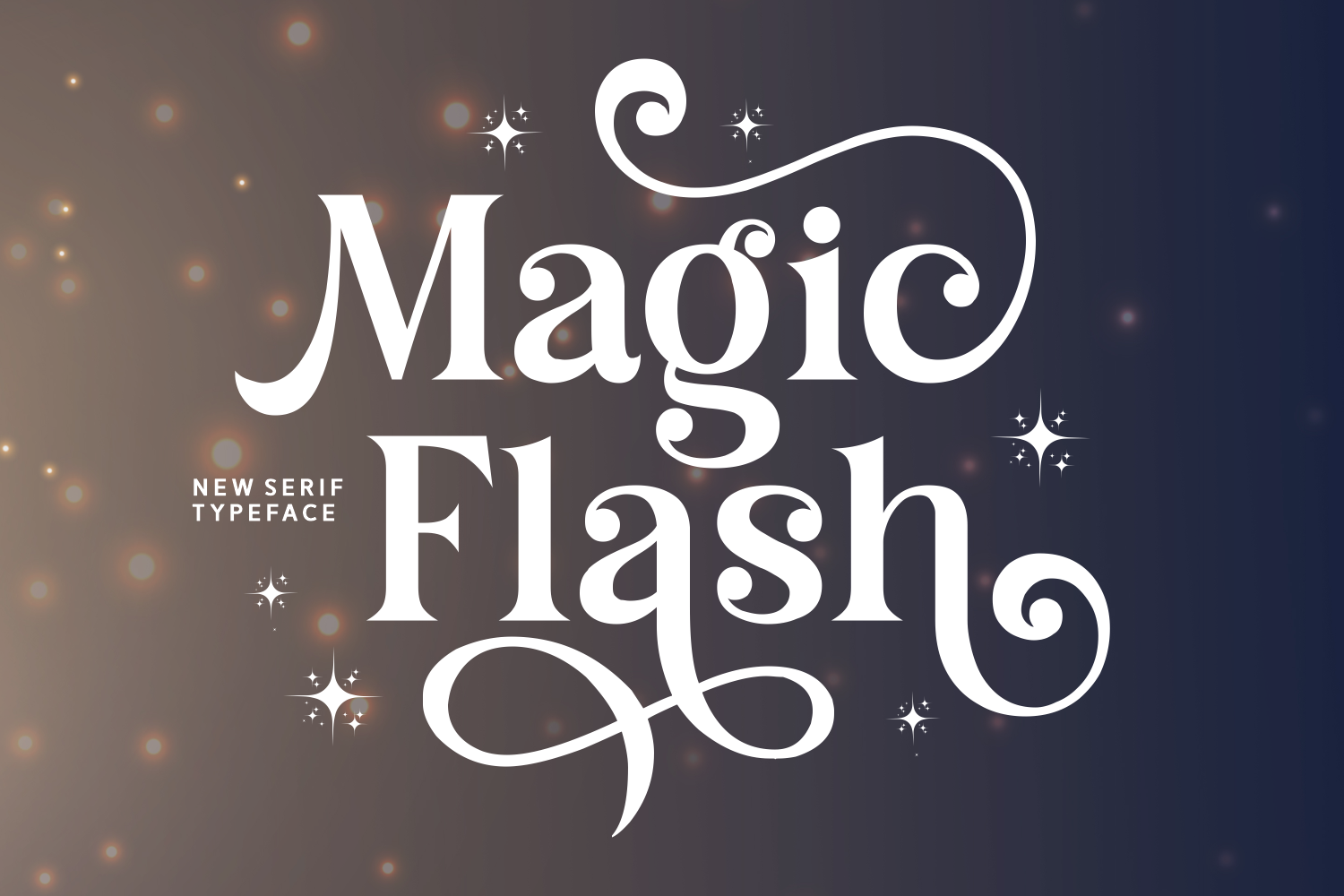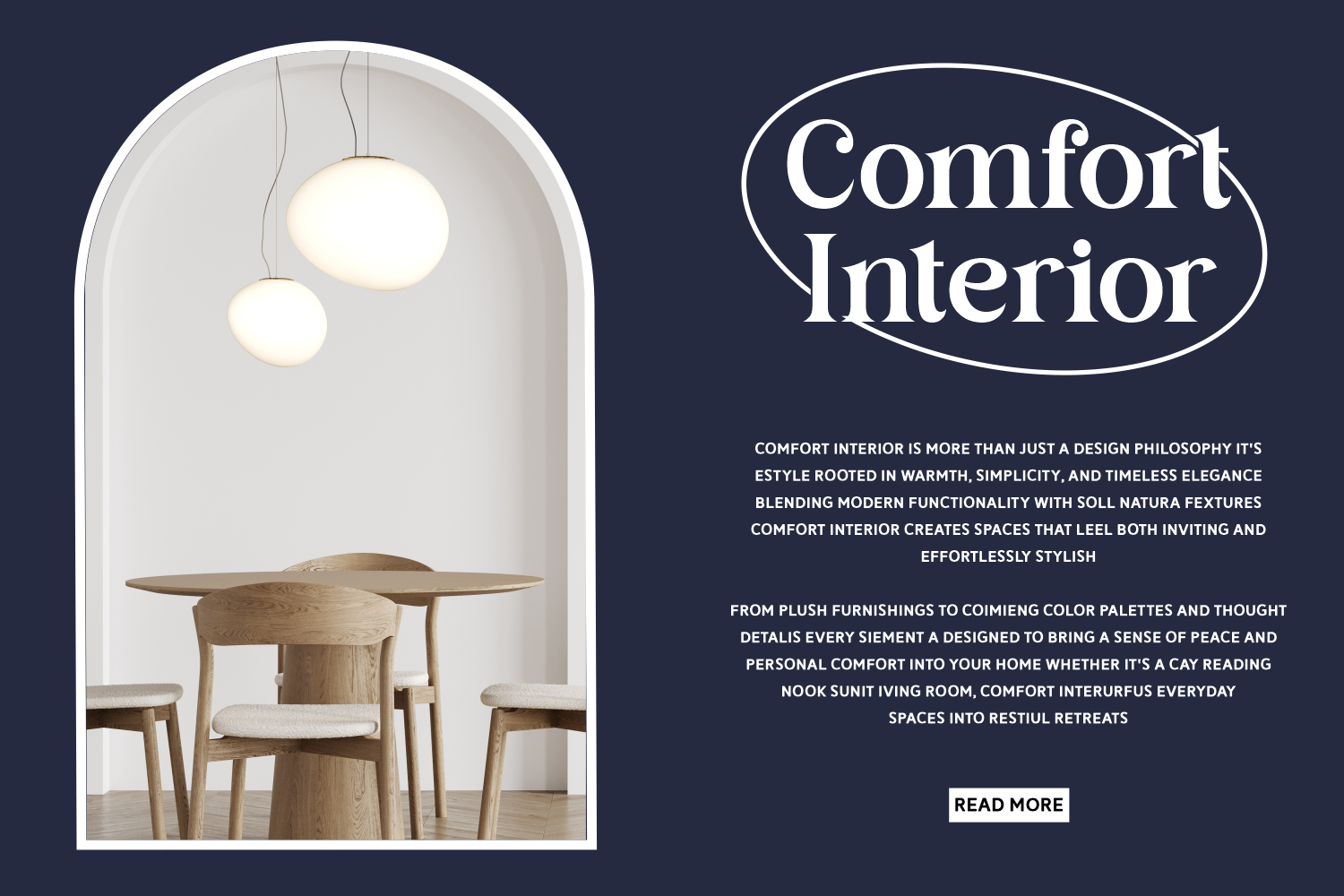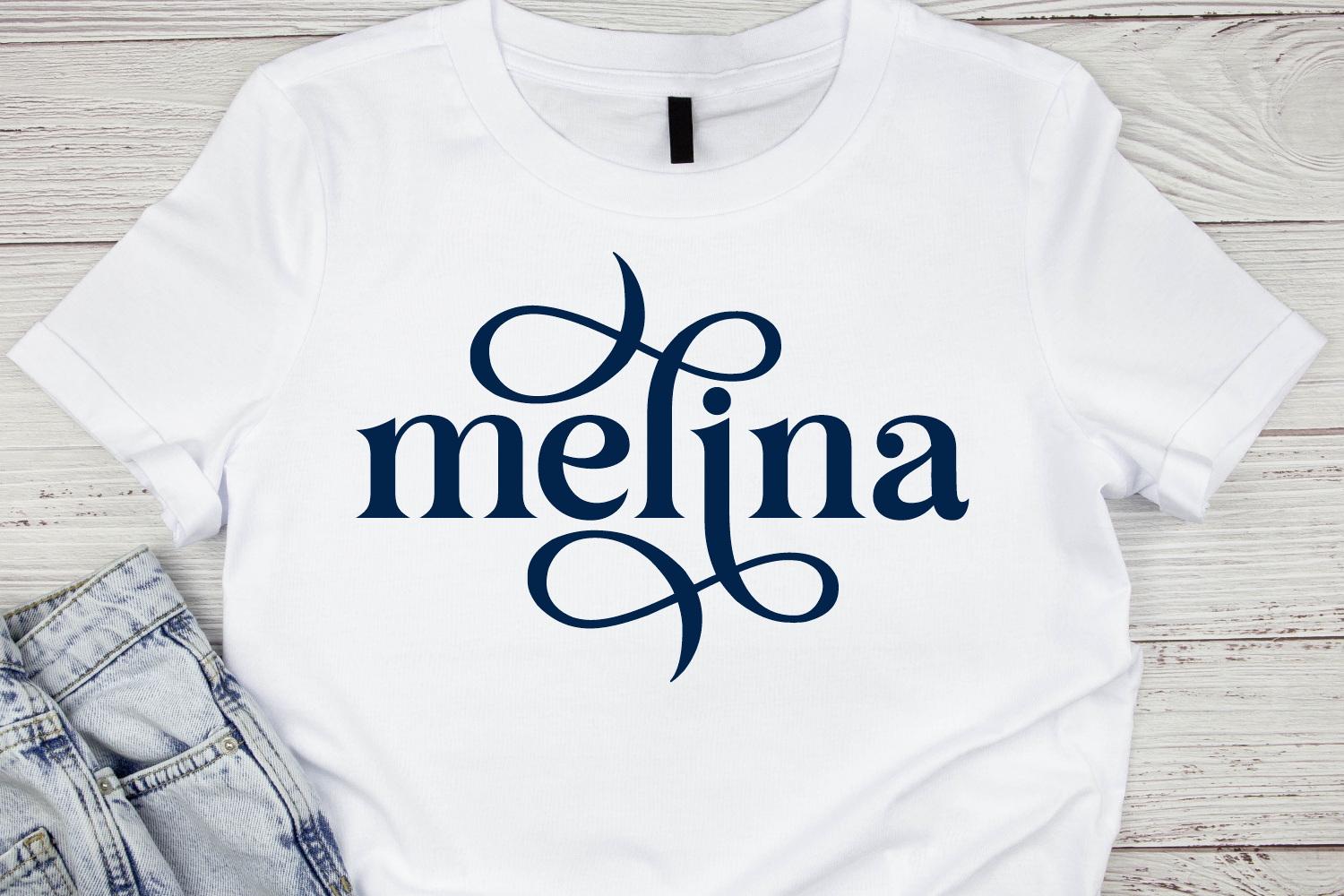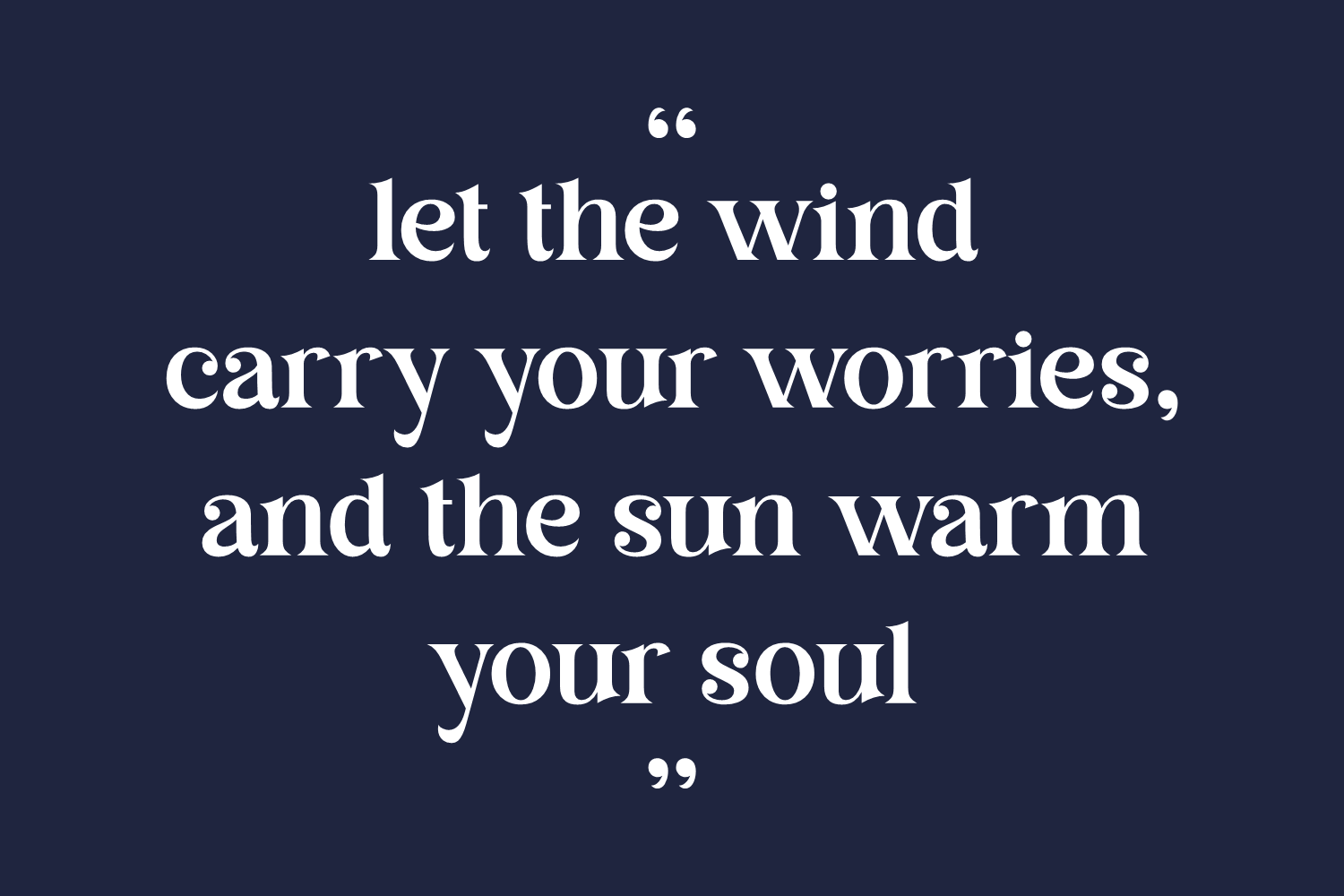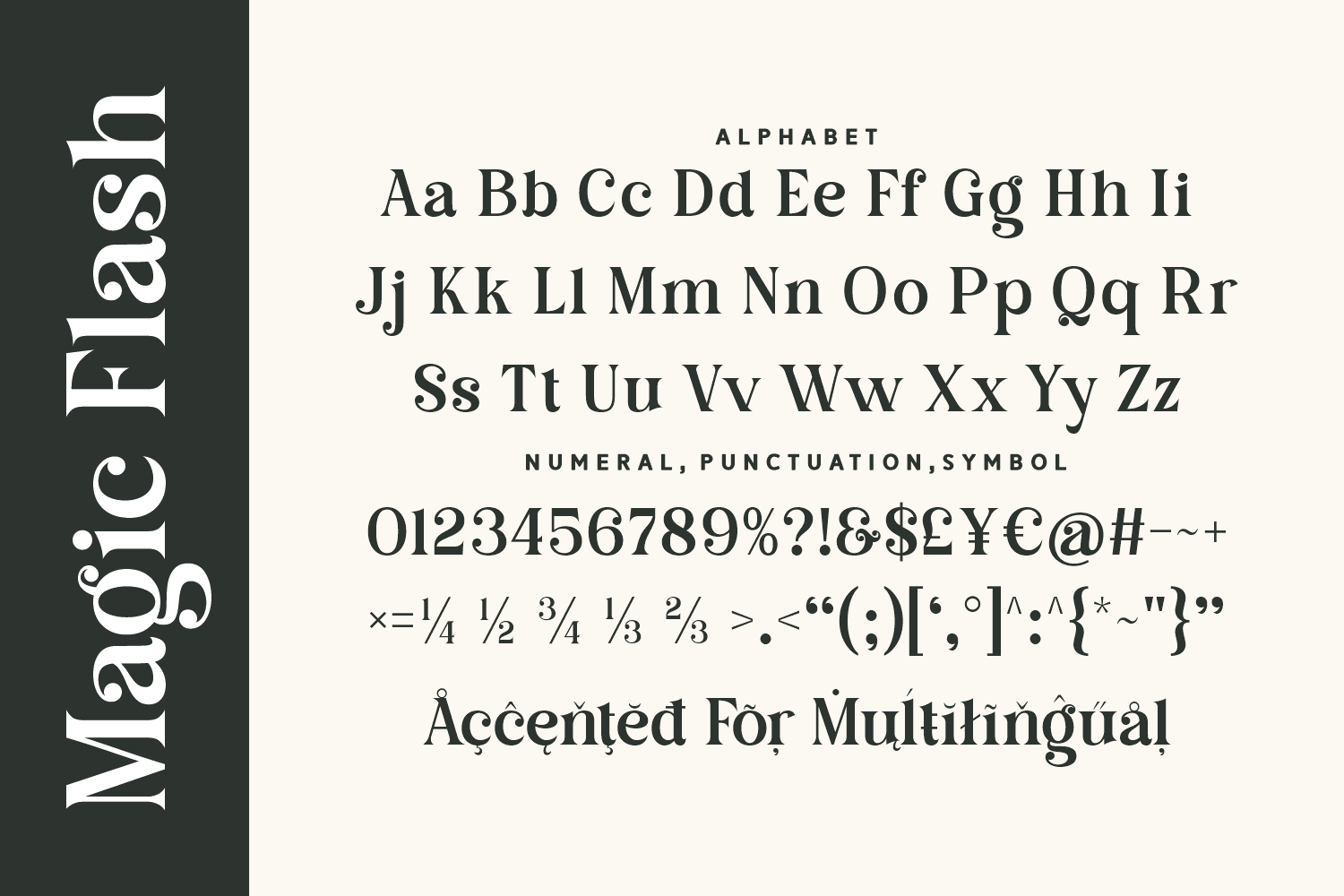
Magic Flash is a whimsical serif typeface with dreamy curves and decorative flair. Sparkling with personality, it’s a perfect match for fantasy themes, children's books, fairytale branding, and magical merchandise.
Add a touch of sparkle to your words.